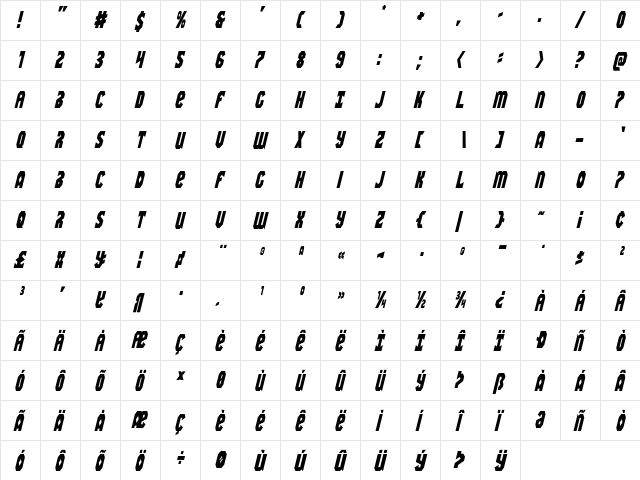
Warrior Nation Condensed Italic Font Preview
Design Context for Warrior Nation Condensed Italic Typeface
Warrior Nation Condensed Italic offers clean, dependable letterforms without strong stylistic allegiance, making it a practical choice for designers who need flexibility. The dynamic lean of this cut emphasises speed and emphasis in any layout. Its narrow stance lets it pack a punch even in space-constrained designs.
Pro Tip: Use Warrior Nation Condensed Italic for emphasis, pull quotes, and subheadings where its slanted energy can add rhythm to the layout.